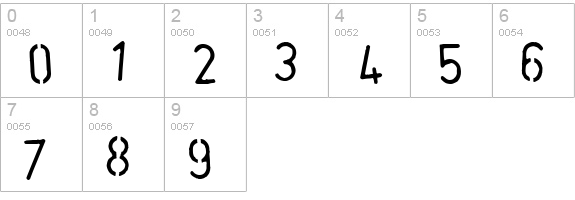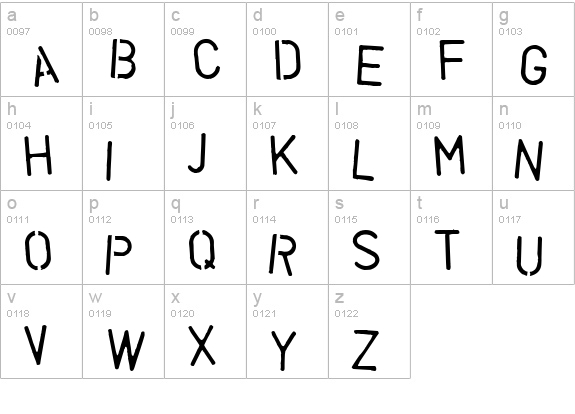
Vegetable Font Details
Vegetable font is a delightful and whimsical typeface that captures the essence of fresh and vibrant produce. This font is perfect for adding a touch of organic charm to any design project, whether it be a menu, a logo, or an invitation. The playful curves and quirky details of Vegetable font evoke a sense of fun and lightheartedness, making it the ideal choice for projects that require a touch of whimsy. But what sets Vegetable font apart is not just its charming design, but also its availability. That's right, Vegetable font is absolutely free! You heard it right, this eye-catching typeface can be yours at no cost. It can be freely downloaded at FontsMarket.com, a leading platform for high-quality fonts. With Vegetable font, you can unleash your creativity without breaking the bank. Whether you're a professional designer or someone who simply loves to experiment with typography, this font is a valuable addition to your font library. Its versatility allows it to shine in a variety of contexts, from digital designs to printed materials. So why wait? Head over to FontsMarket.com and discover the delightful world of Vegetable font. With its playful and organic aesthetic, this typeface is sure to bring a touch of freshness to your next design project. Best of all, it won't cost you a penny! Download your copy today and let your creativity flourish with Vegetable font.